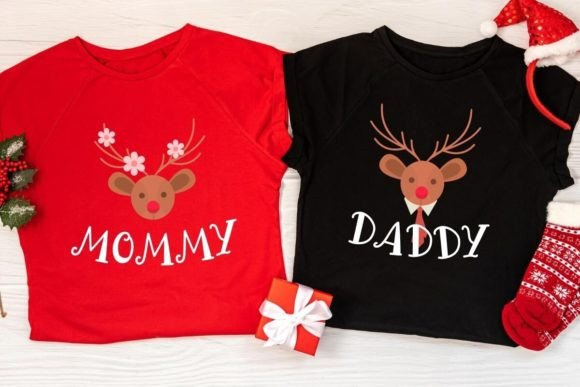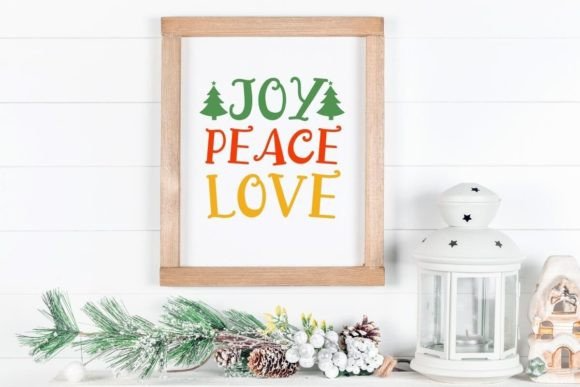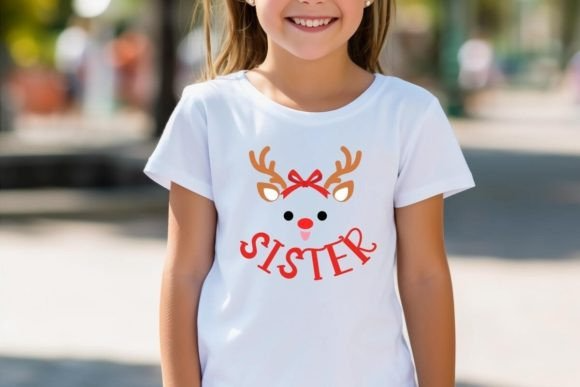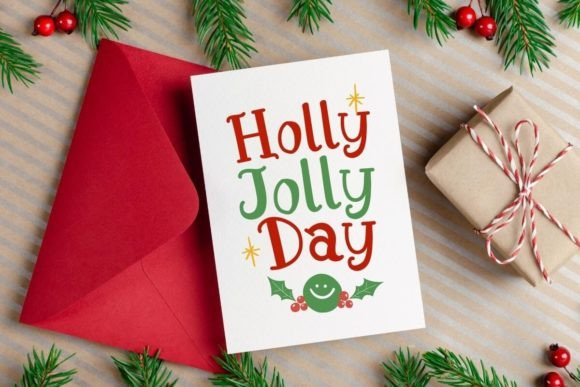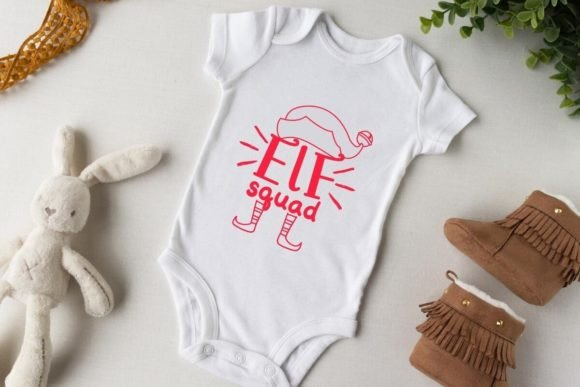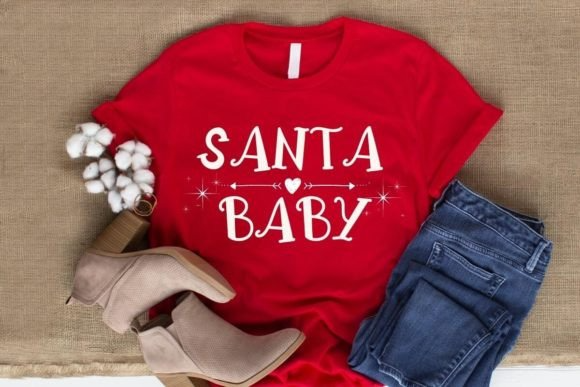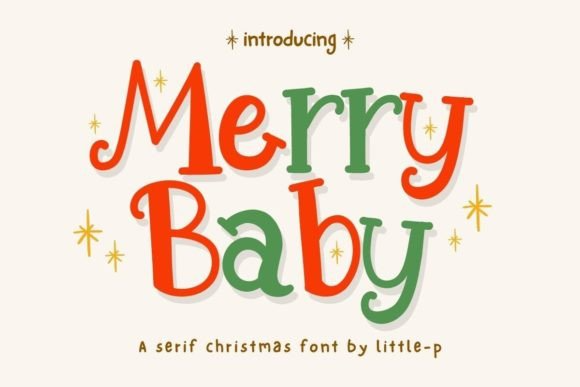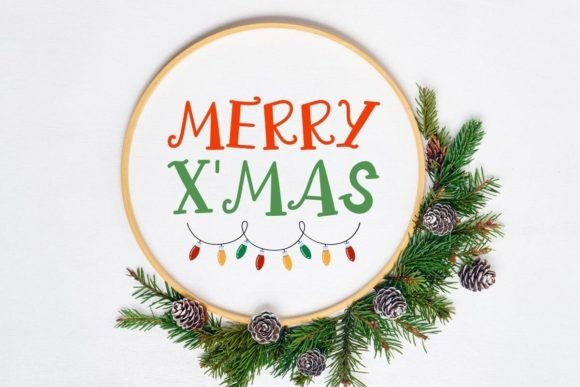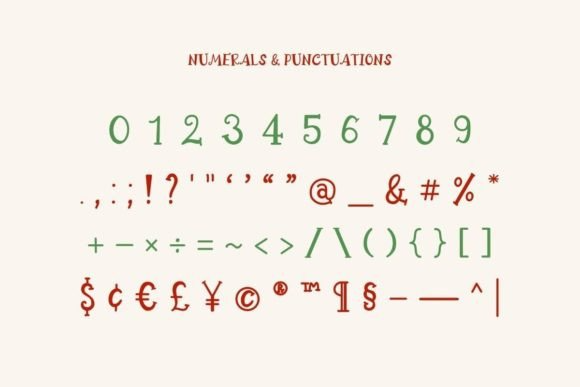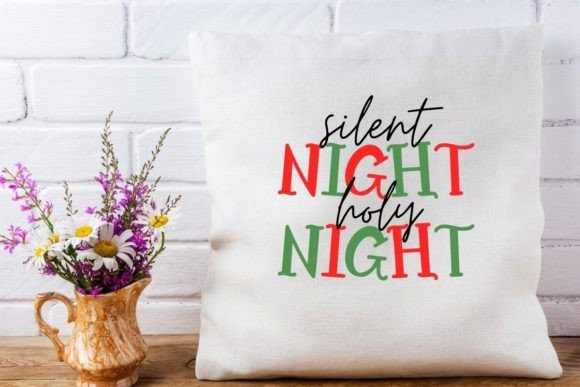
Merry Baby Font
Introducing “Merry Baby” the Christmas font that exudes a festive and playful charm, capturing the essence of the holiday season. With its handwritten serif style, “Merry Baby” adds a touch of warmth and merriment to your designs. This font is the perfect choice for creating captivating Christmas posters, designing heartwarming Christmas cards, crafting cheerful T-shirt graphics, adorning stickers with holiday magic, curating merchandise that spreads the joy of the season, and embarking on delightful Christmas crafting projects.